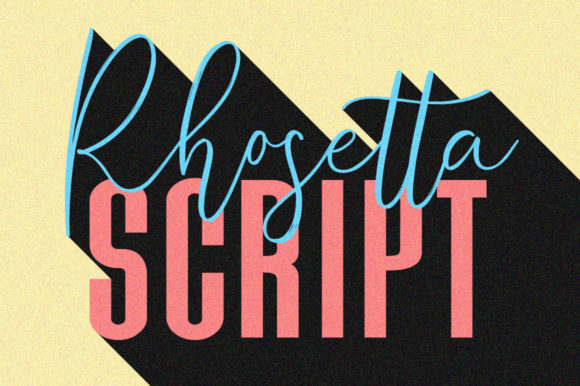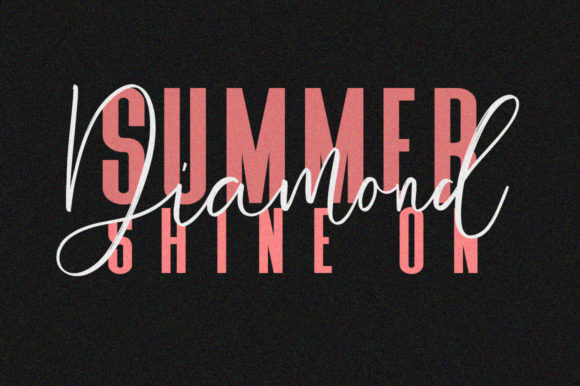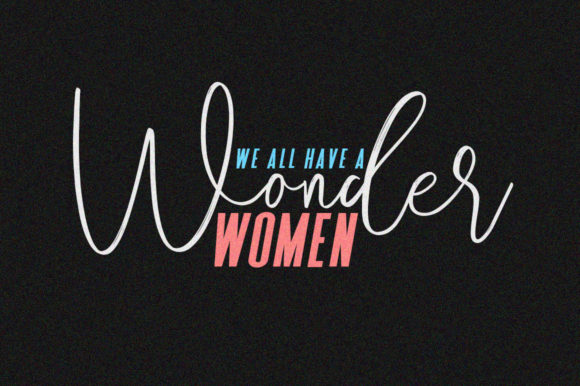
About Rhosetta Script Font
Rhosetta Script is a spectacular duo font (sans and script). Incredibly versatile, this font fits a wide pool of designs, elevating them to the highest levels. It looks stunning on wedding invitations, thank you cards, quotes, greeting cards, logos, business cards and every other design which needs a handwritten touch.